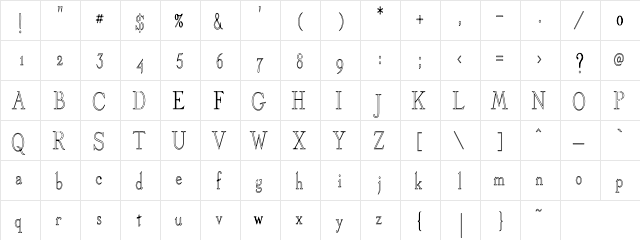
DickensHC Regular
Design Context for DickensHC Typeface
DickensHC is a composed and adaptable typeface that performs quietly and consistently across a wide range of design contexts.